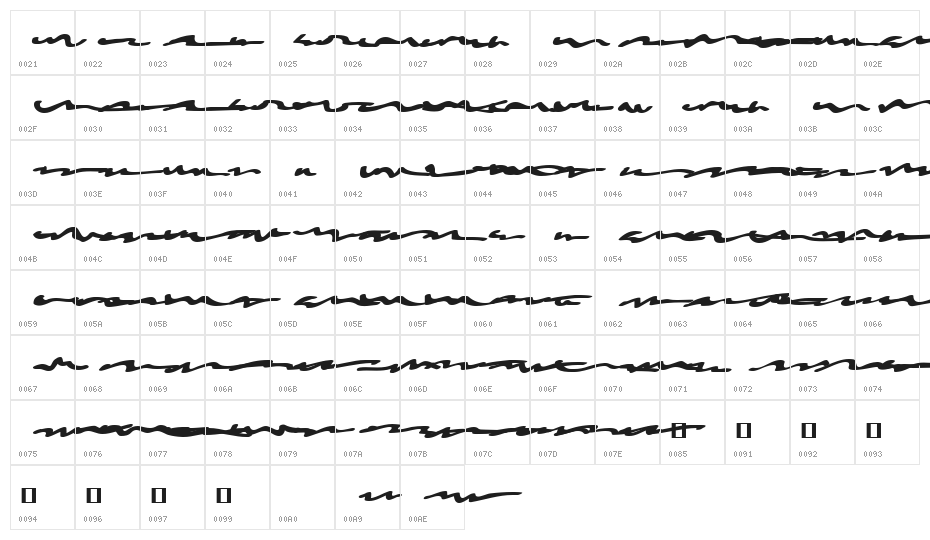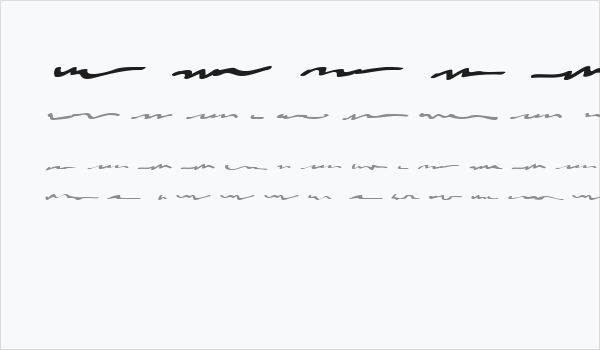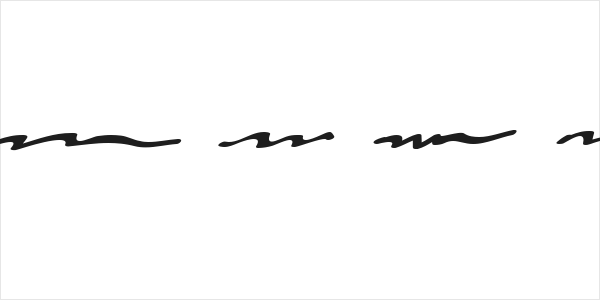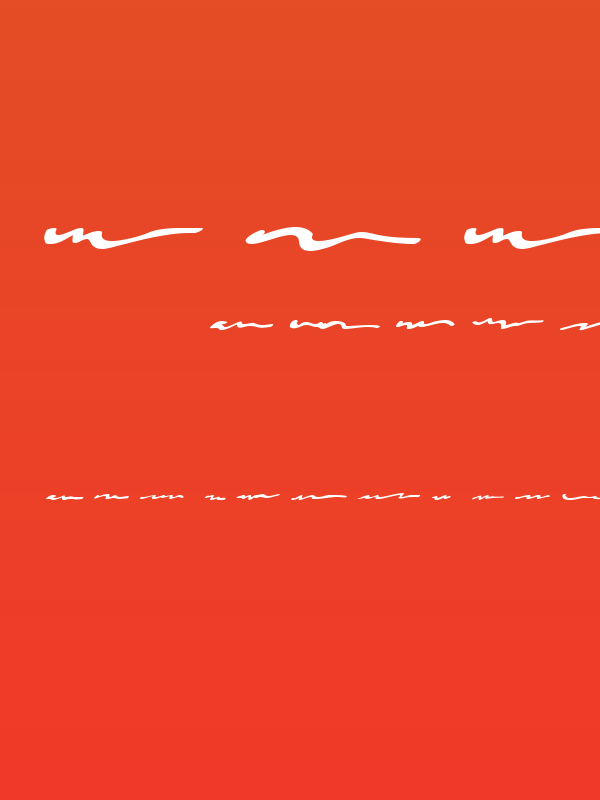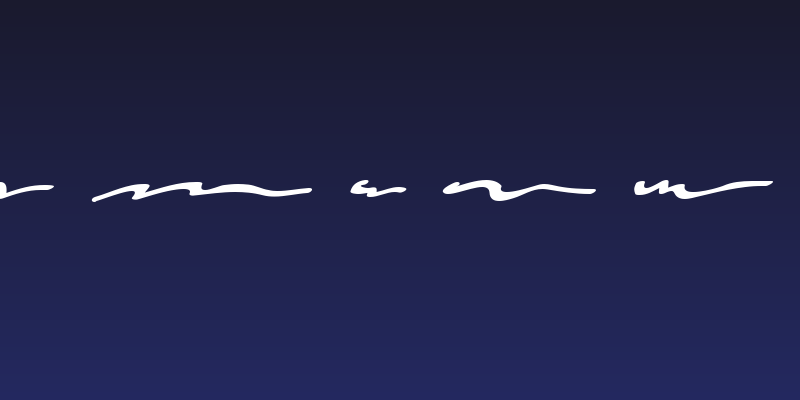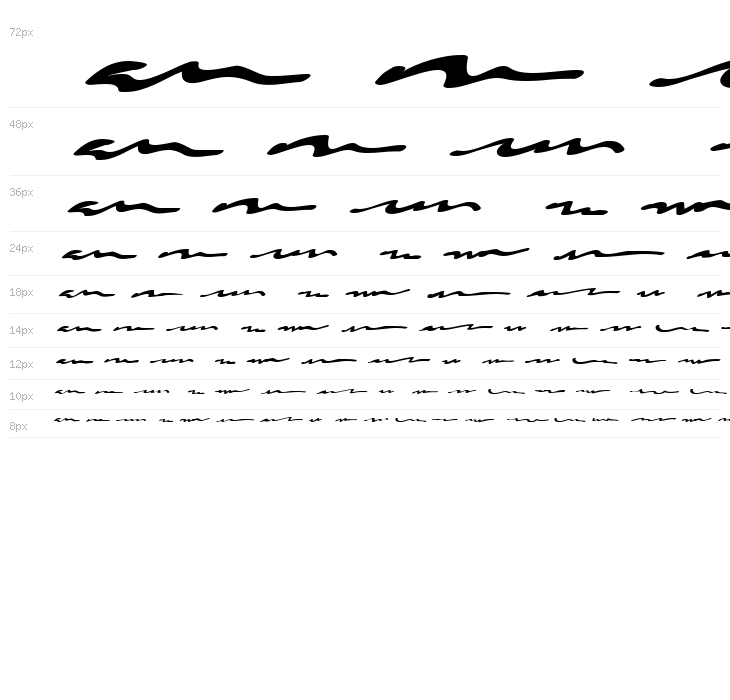
MumbleGrumble I BB Font
MumbleGrumble I BB Description
This font exhibits a playful and informal handwritten style, characterized by its loose and flowing strokes. The letters are connected in a way that mimics natural handwriting, giving it a personal and casual feel. The strokes vary in thickness, adding a dynamic and lively appearance. This font is perfect for projects that require a touch of personality and warmth, such as invitations, greeting cards, or personal notes. Its unique style makes it stand out, while still being legible and approachable.
| Use Case | Headlines, Personal notes, Creative projects |
| Proposed Projects | Ideal for invitations, greeting cards, personal notes, and creative projects. |